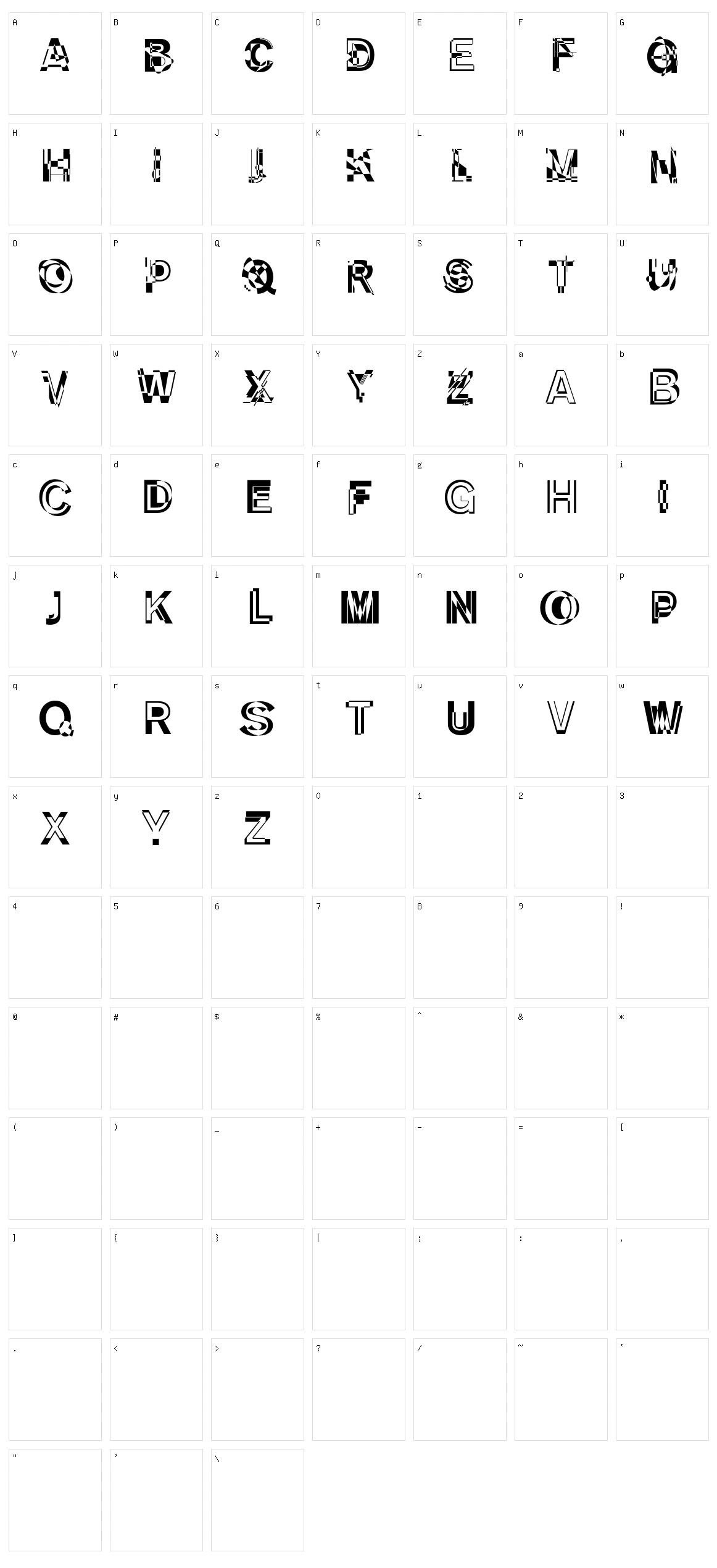
The free font DeKunst Initialen is carefully designed by ingoFonts, showcasing a thoughtful balance of creativity and usability and falls under the Distorted font style. When you download the ZIP file, it contains only 79.05 KB of font files, making it lightweight and quick to download. Please review the license details below to understand permitted usage and distribution rights. If license information is not available, we recommend using this font for personal projects only or contacting the author directly for commercial usage permissions.